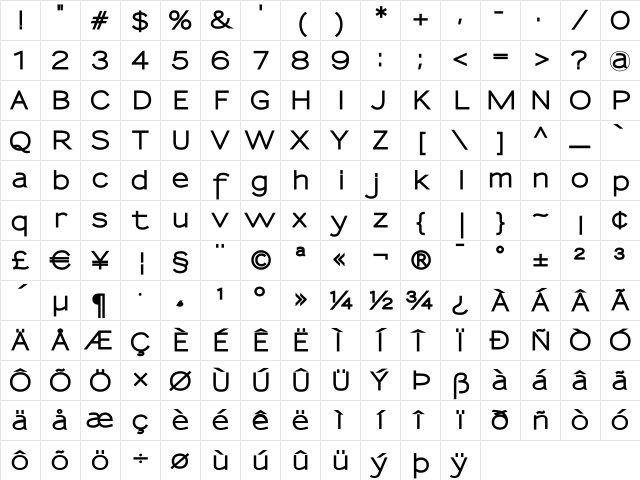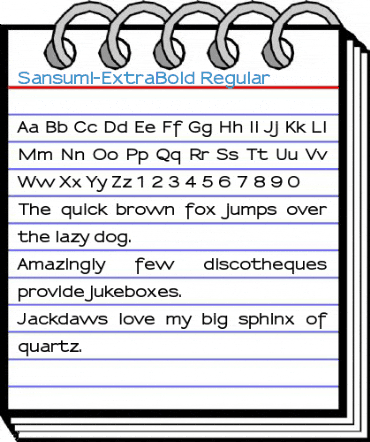
Sansumi-ExtraBold Regular Free Font
Sansumi-ExtraBold Regular
Design Context for Sansumi-ExtraBold
Sansumi-ExtraBold is a composed and adaptable typeface that performs quietly and consistently across a wide range of design contexts. Its bold stroke weight gives it real presence on the page.